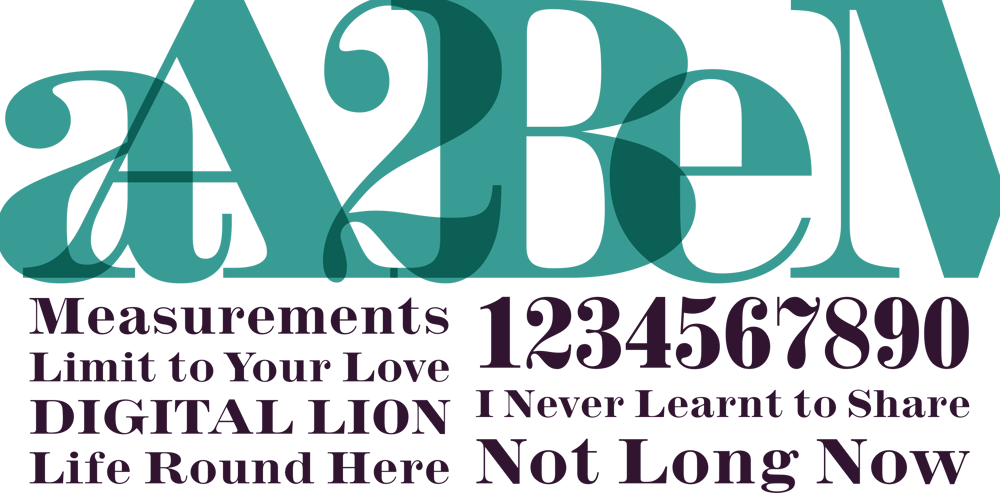
Inflex Font Family was designed by Monotype Design Studio and published by Monotype. Inflex contains 1 styles and family package options. Released by the Monotype Corporation around 1932, Inflex Bold is a Scotch Roman fat face design similar to many others popular in the nineteenth century. A high-contrast bold roman, Inflex Bold is good for informal display work when used sparingly.